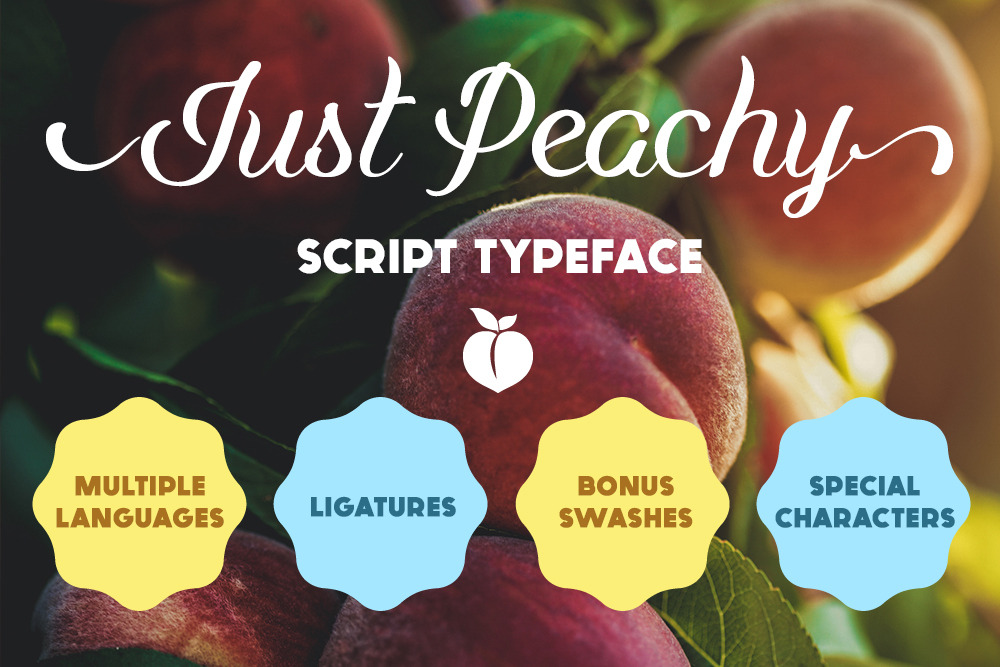
Just Peachy Script Typeface
A clean, yet expressive script typeface (OTF). Large, swooping strokes create dynamic thicks and thins while maintaining easy legibility. Its elegant lines, combined with an imperfect brush script style, create an authentic look appropriate in almost any situation. It is ideal for logo design and display use.
Just Peachy uses OpenType ligatures to avoid messy letter combinations and create a smoother look. Just make sure your standard ligatures are turned on and your kerning is set to Metrics.
Just Peachy supports a number of languages that use the Latin alphabet by including a wide range of accents and diacritics.
Included are six swashes that can be used and manipulated as the designer wishes. Some of their ideal pairings are shown above. Depending on how they are used, some extra kerning may be necessary.